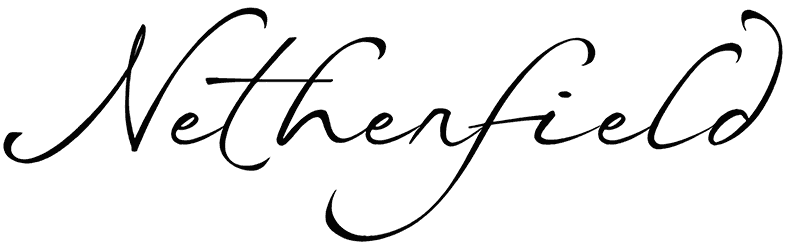
Netherfield Font
How ravishing your love letter will be if you use a classic calligraphy font like this one. Delicate letters will give a delightful and lovely mood to your words and make them more engaging. The Netherfield font doesn’t offer numbers and punctuation marks, but don’t worry, it will be enough to mesmerize your beloved person.
Features : Ligature & Alternate